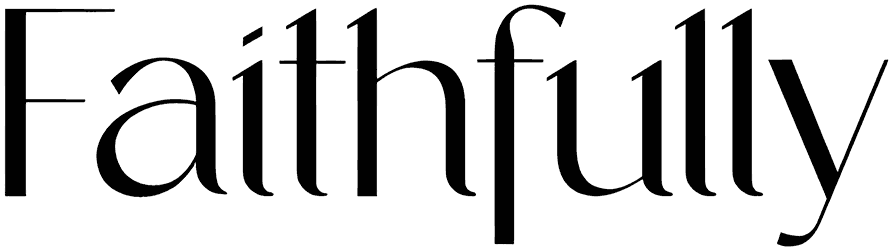
If you love classic and minimal designs, don’t miss this offer because it won’t let you down. Mogen is a sans serif font with modest letters and an original style. As an elegant font with full characters, Mogen can uniquely display your innovative designs, such as magazines, company logos, signages, and along with others.